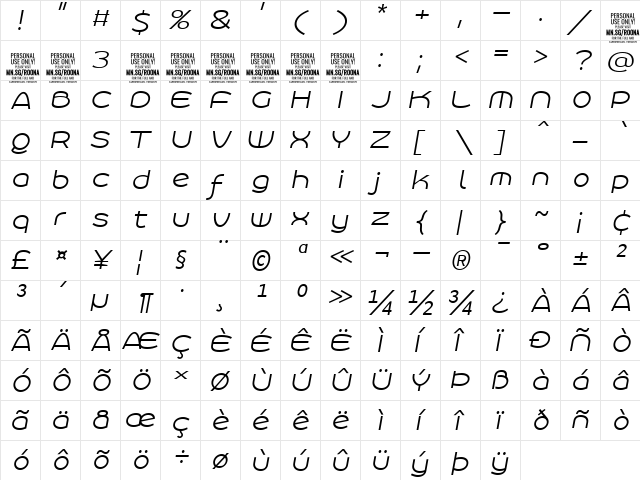
Roona Sans Light PERSONAL Italic Font Preview
Design Context for Roona Sans Light PERSONAL Typeface
Roona Sans Light PERSONAL offers clean, dependable letterforms without strong stylistic allegiance, making it a practical choice for designers who need flexibility. The dynamic lean of this cut emphasises speed and emphasis in any layout. The delicate stroke weight brings airiness and refinement to layouts.
Pro Tip: Use Roona Sans Light PERSONAL for emphasis, pull quotes, and subheadings where its slanted energy can add rhythm to the layout.